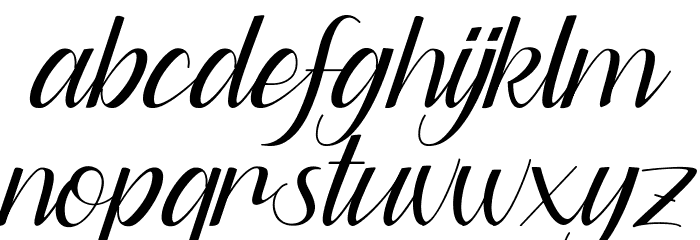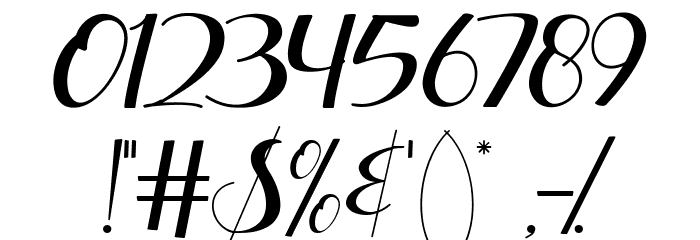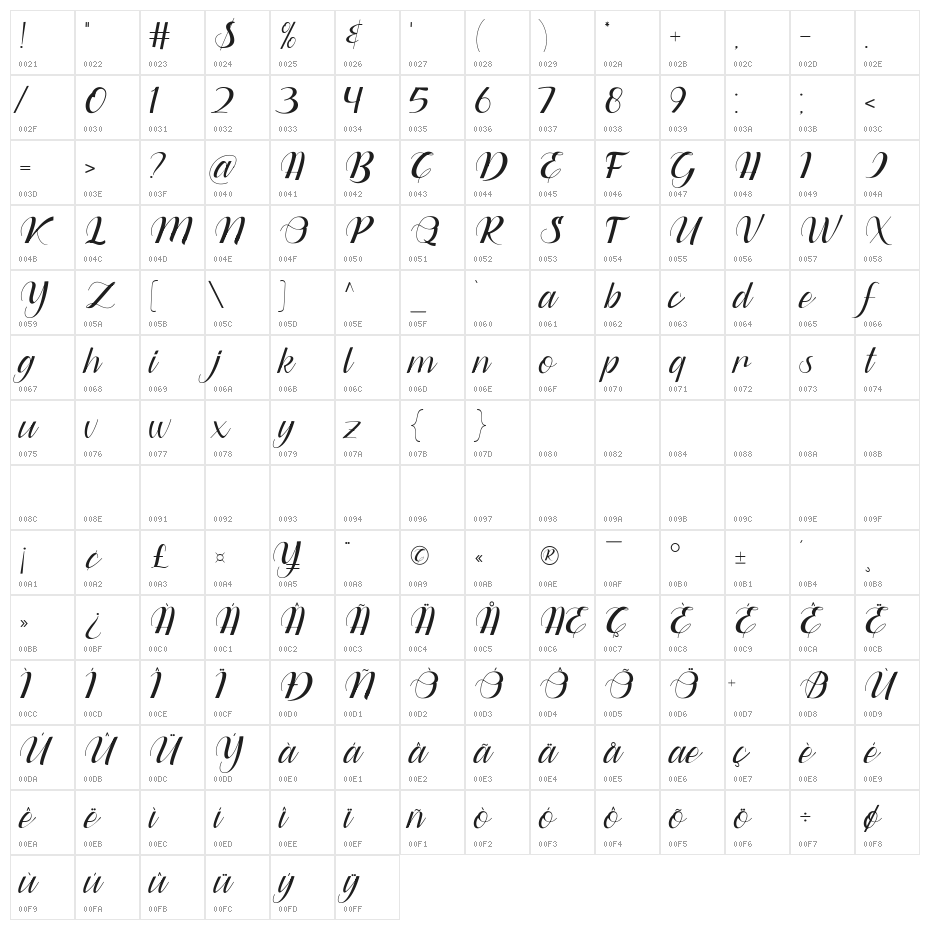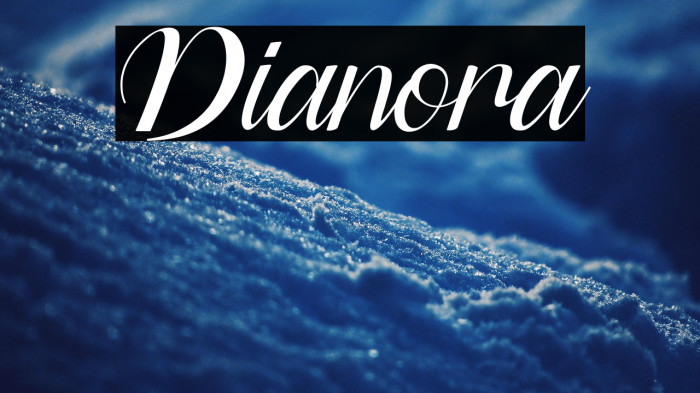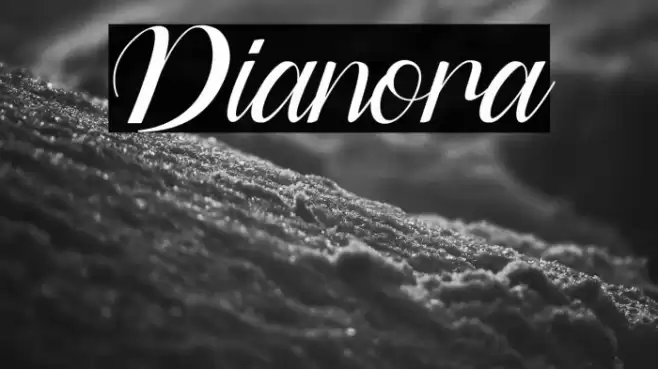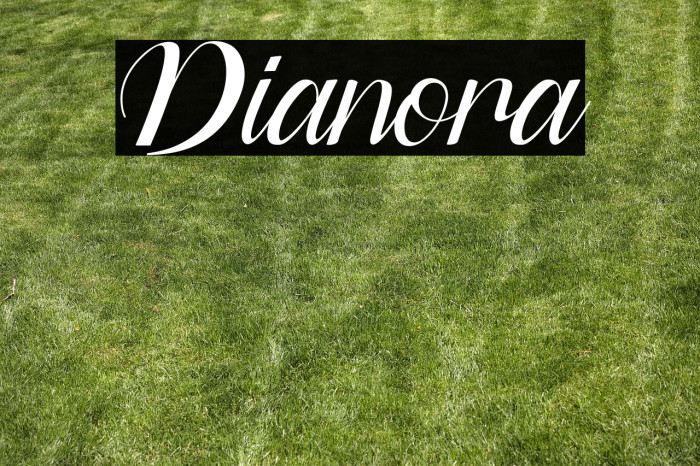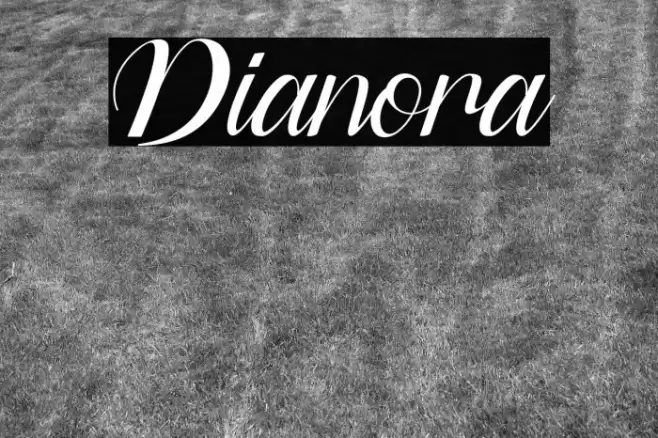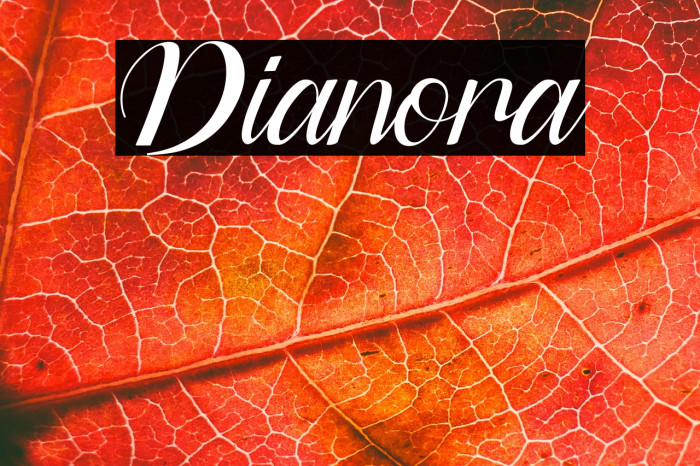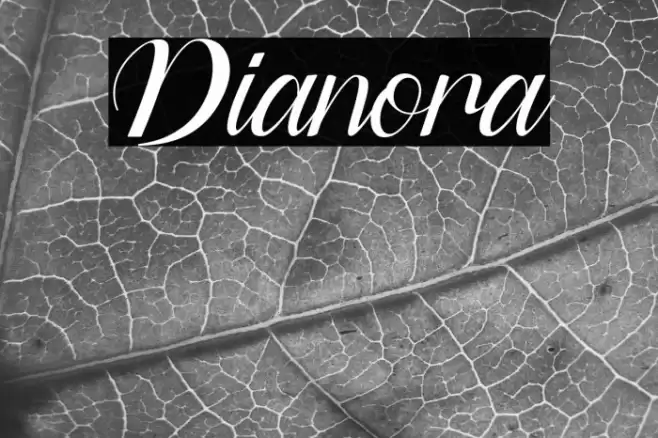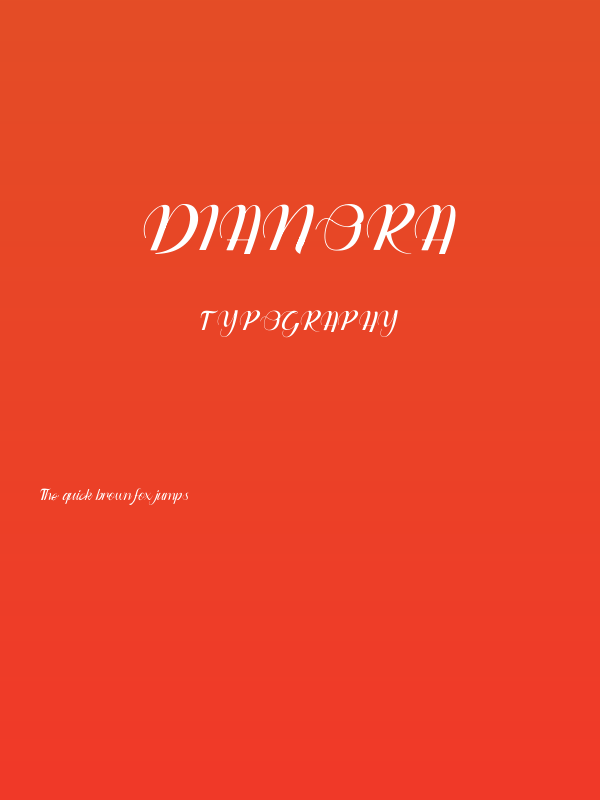
Dianora Font
This elegant script font features a flowing, cursive style with a modern touch. The uppercase letters are characterized by their sweeping curves and intricate loops, giving them a sophisticated and graceful appearance. The lowercase letters maintain a consistent fluidity, with elongated strokes and a slight slant that enhances readability. The numerals are stylish and complement the overall aesthetic, while the special characters are thoughtfully designed to match the font's elegant theme. This font exudes a sense of refinement and is perfect for projects that require a touch of class and elegance.
A modern, elegant script font with flowing, cursive characters.
- Proposed Projects: Ideal for wedding invitations, luxury branding, elegant logos, and high-end product packaging.